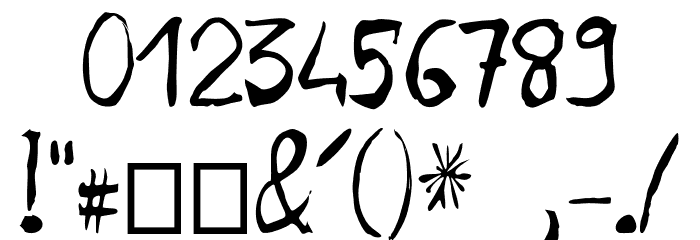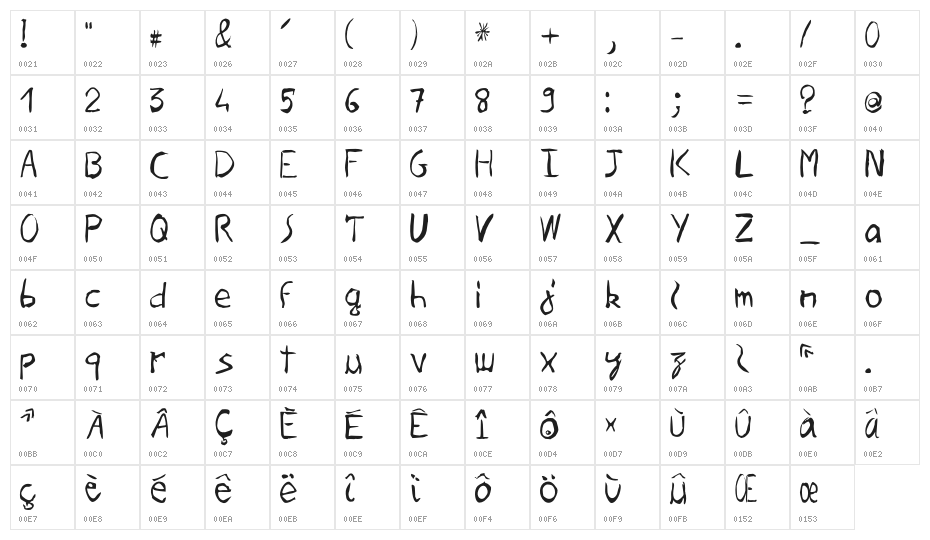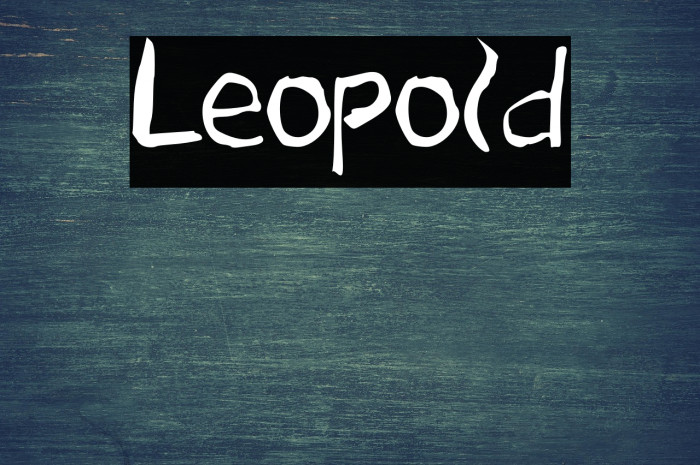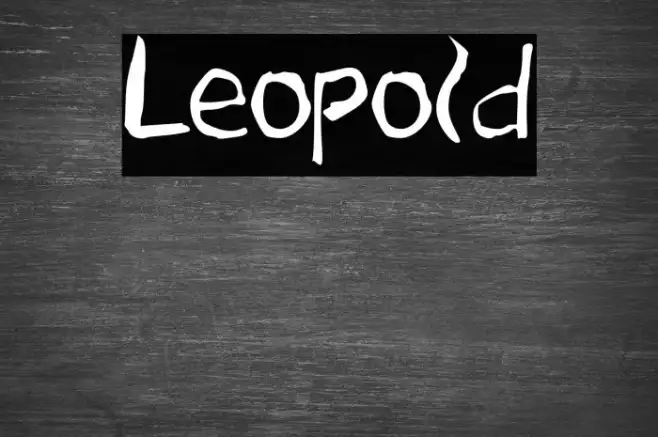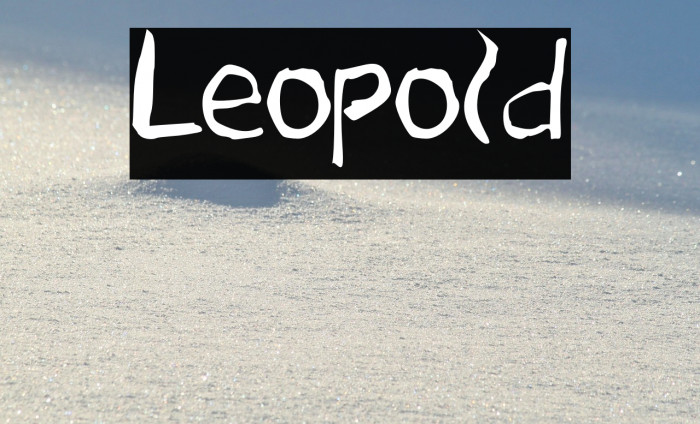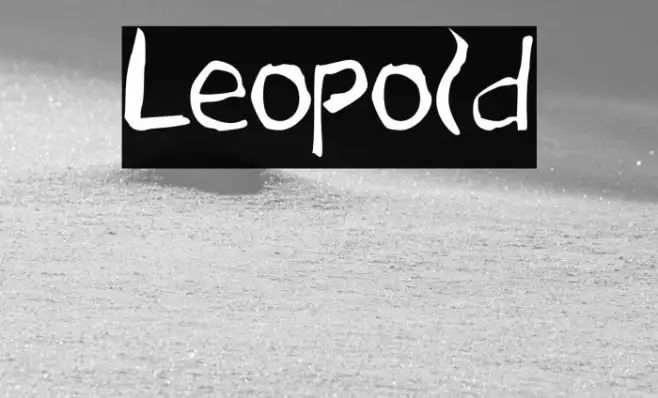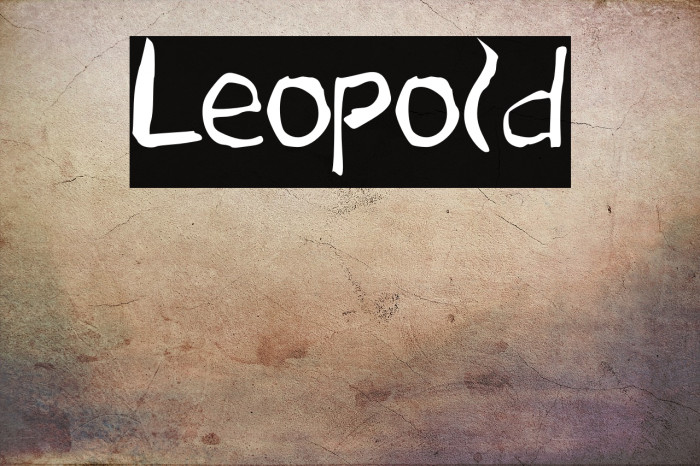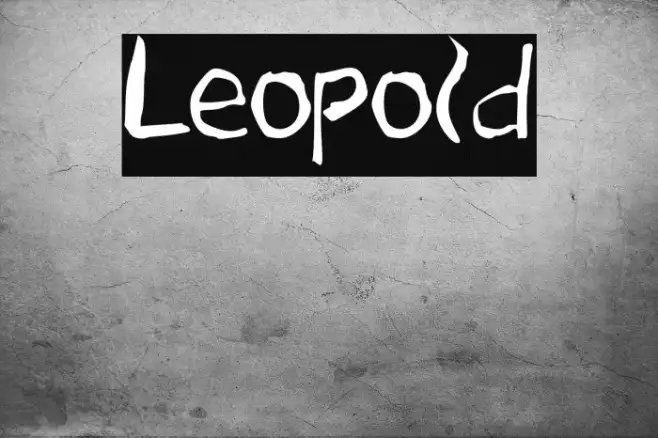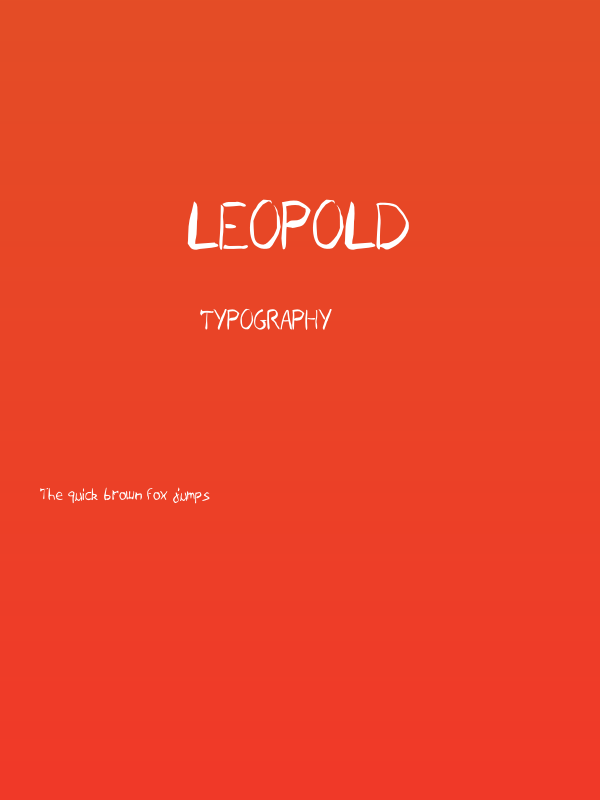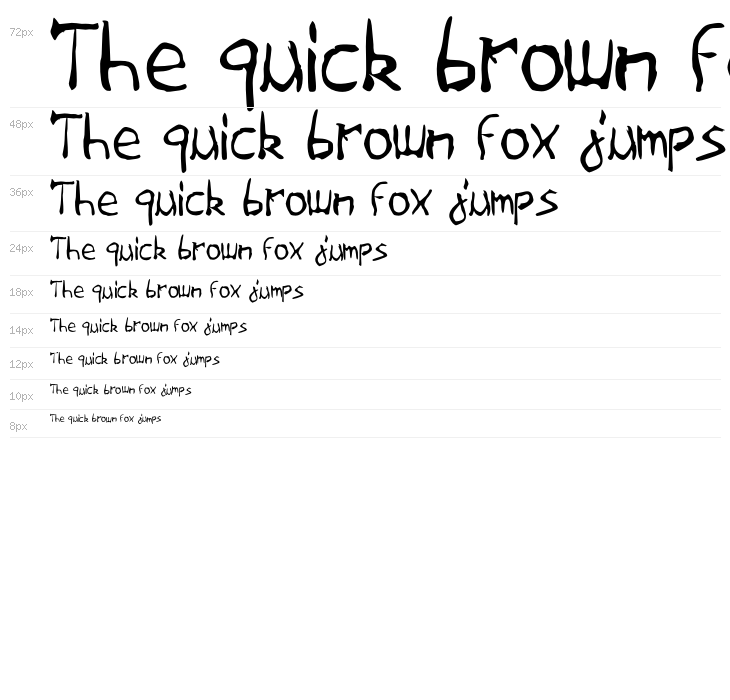
Leopold Font
Leopold Description
This font features a dynamic and expressive style, characterized by its irregular and hand-drawn appearance. The letters exhibit a playful and artistic flair, with varying stroke widths that add a sense of movement and energy. The uppercase and lowercase letters maintain a consistent style, with a slightly rough texture that enhances its organic feel. The numerals and special characters follow the same aesthetic, making the font suitable for creative and informal applications. Its unique design makes it stand out, offering a personal touch to any project.
| Proposed Projects | Ideal for creative projects such as posters, invitations, and branding that require a personal and artistic touch. |